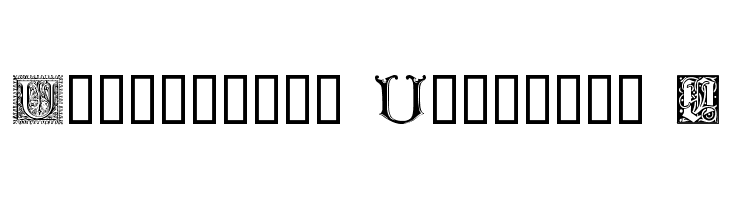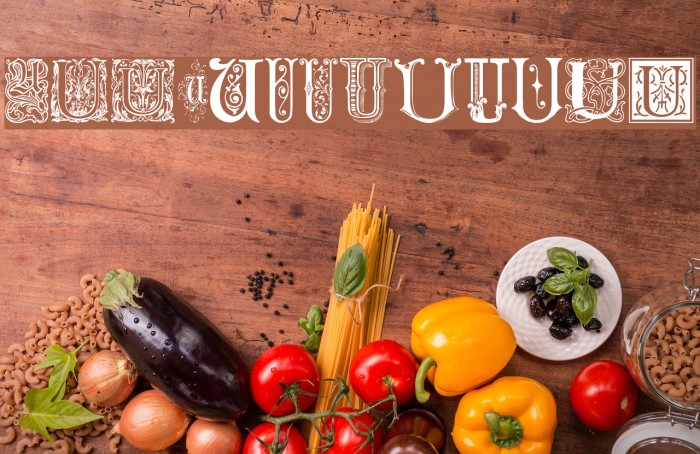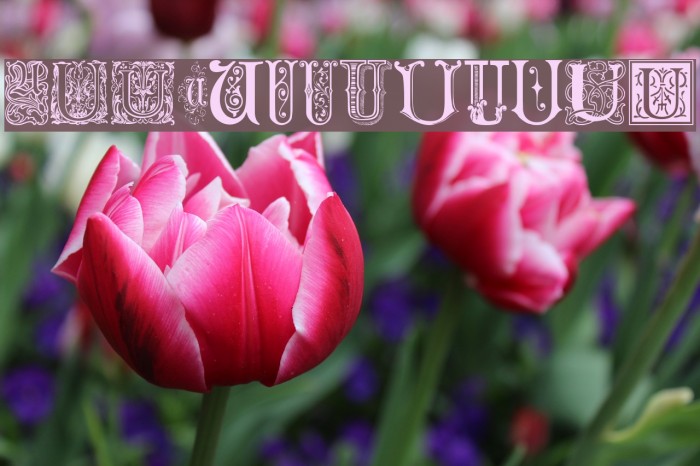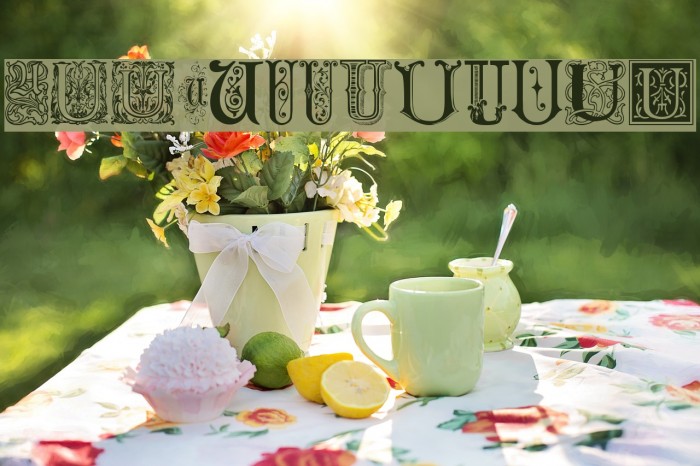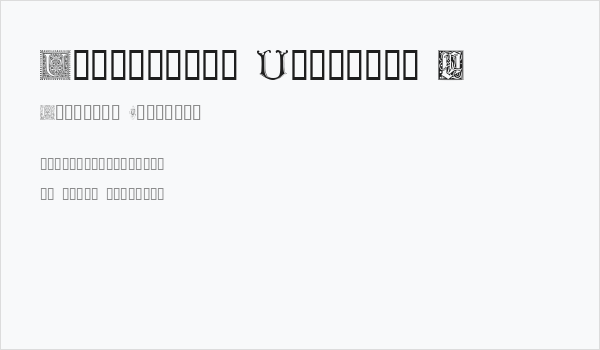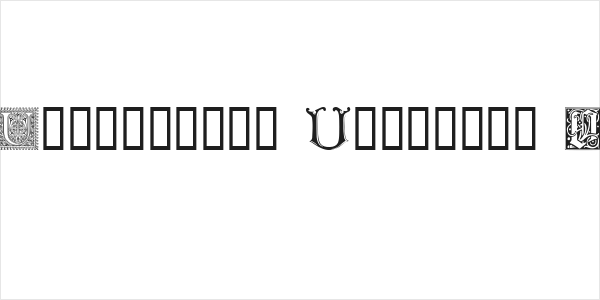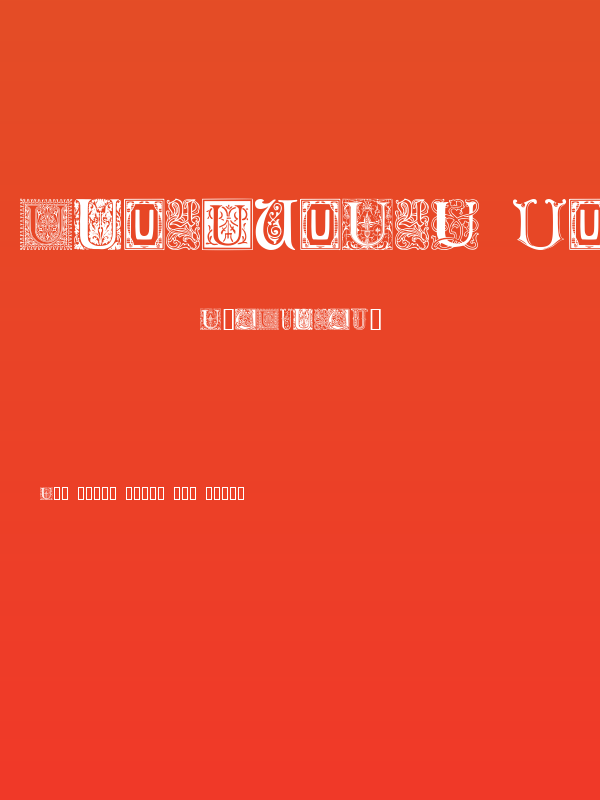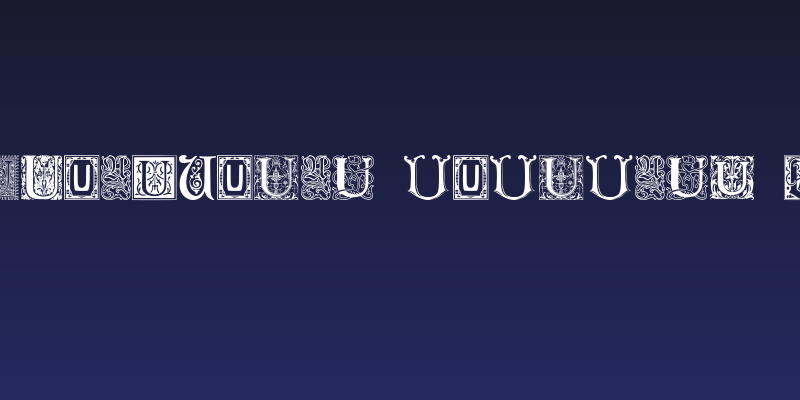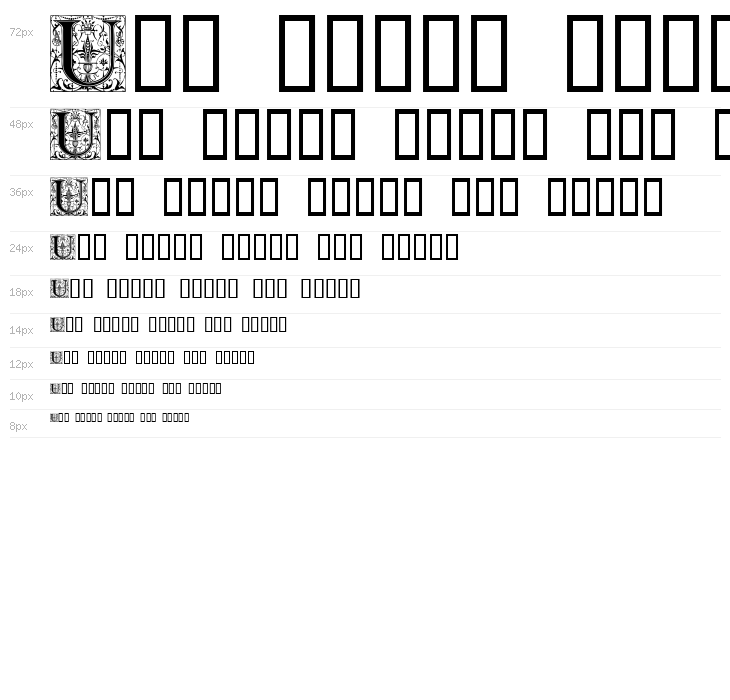
Ornamental Initials U Font
Ornamental Initials U Description
This font is a highly decorative and ornamental style, featuring intricate designs and embellishments within each letter. The uppercase letters are adorned with elaborate flourishes and motifs, giving them a regal and vintage appearance. Each character is uniquely crafted, often incorporating floral or geometric patterns that enhance the overall aesthetic. The font is reminiscent of historical manuscripts or illuminated texts, where each letter serves as a piece of art. Its detailed and ornate nature makes it suitable for projects that require a touch of elegance and sophistication.
| Proposed Projects | Ideal for wedding invitations, historical-themed projects, luxury branding, or any design requiring a vintage and elegant touch. |